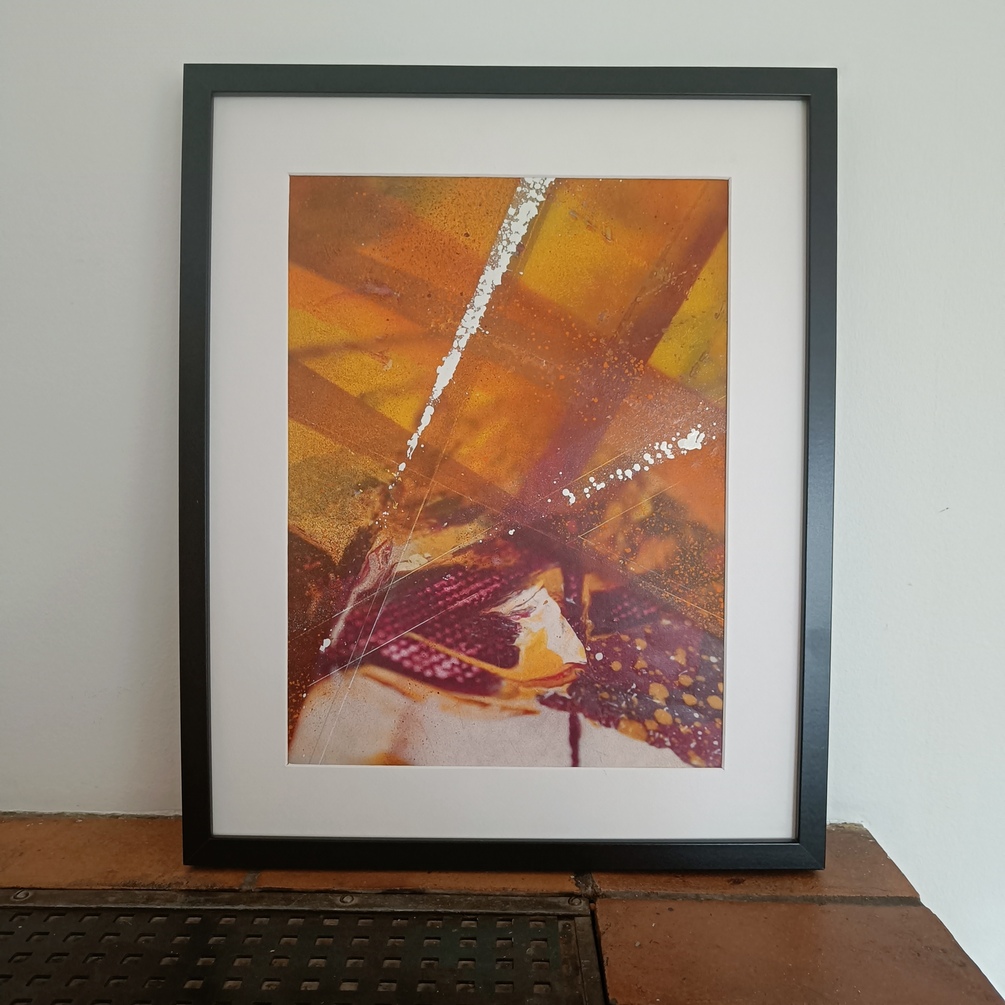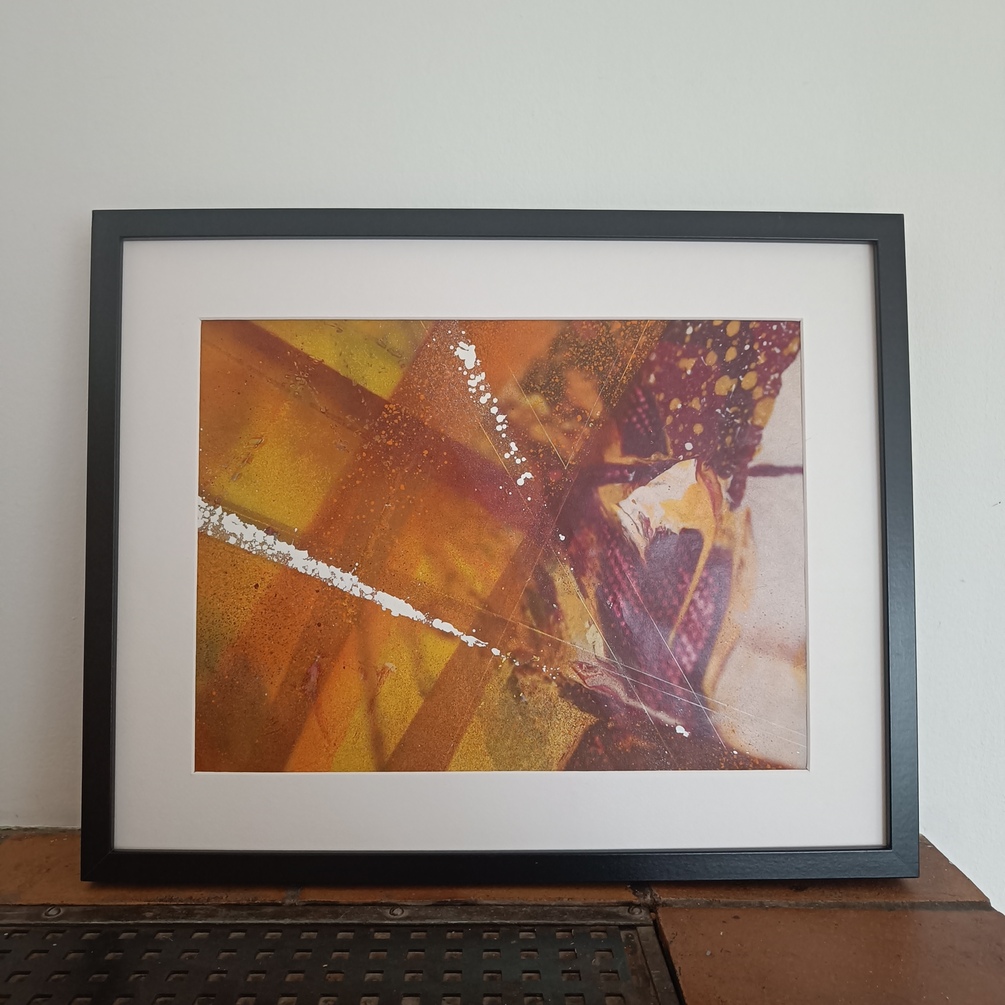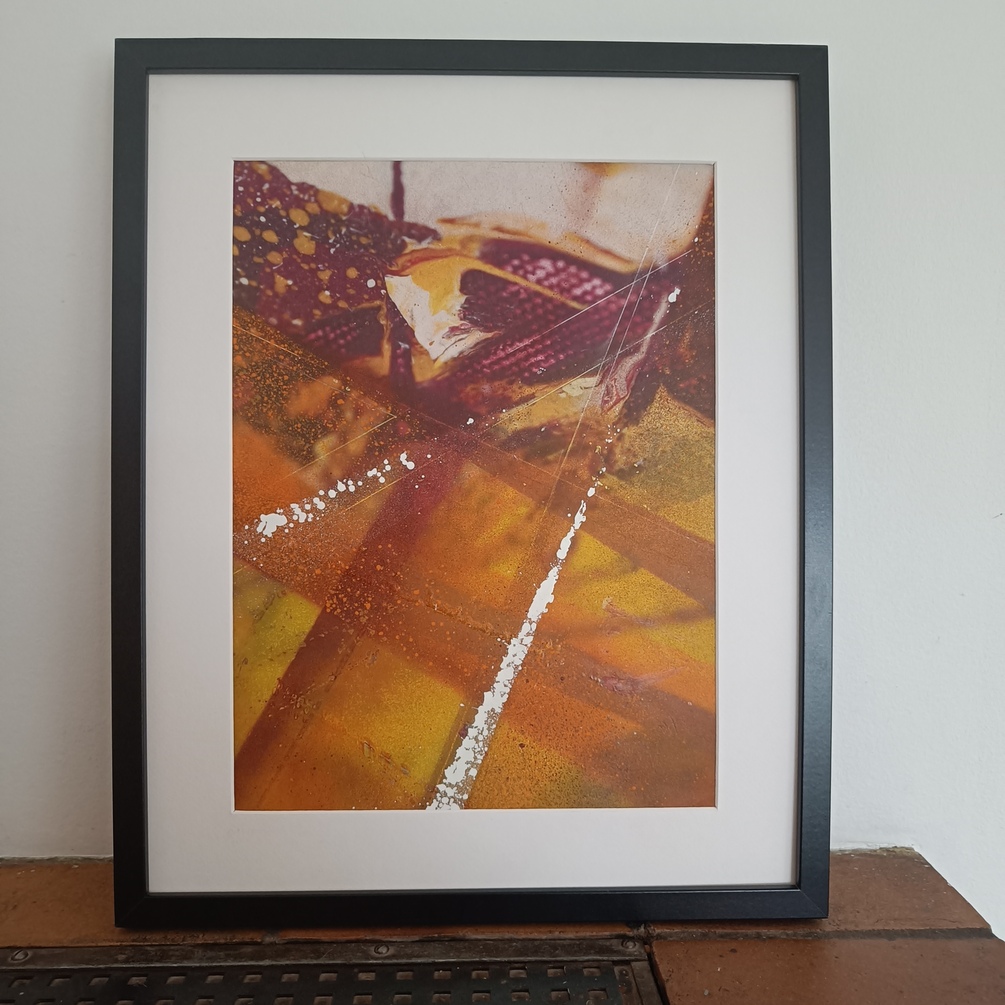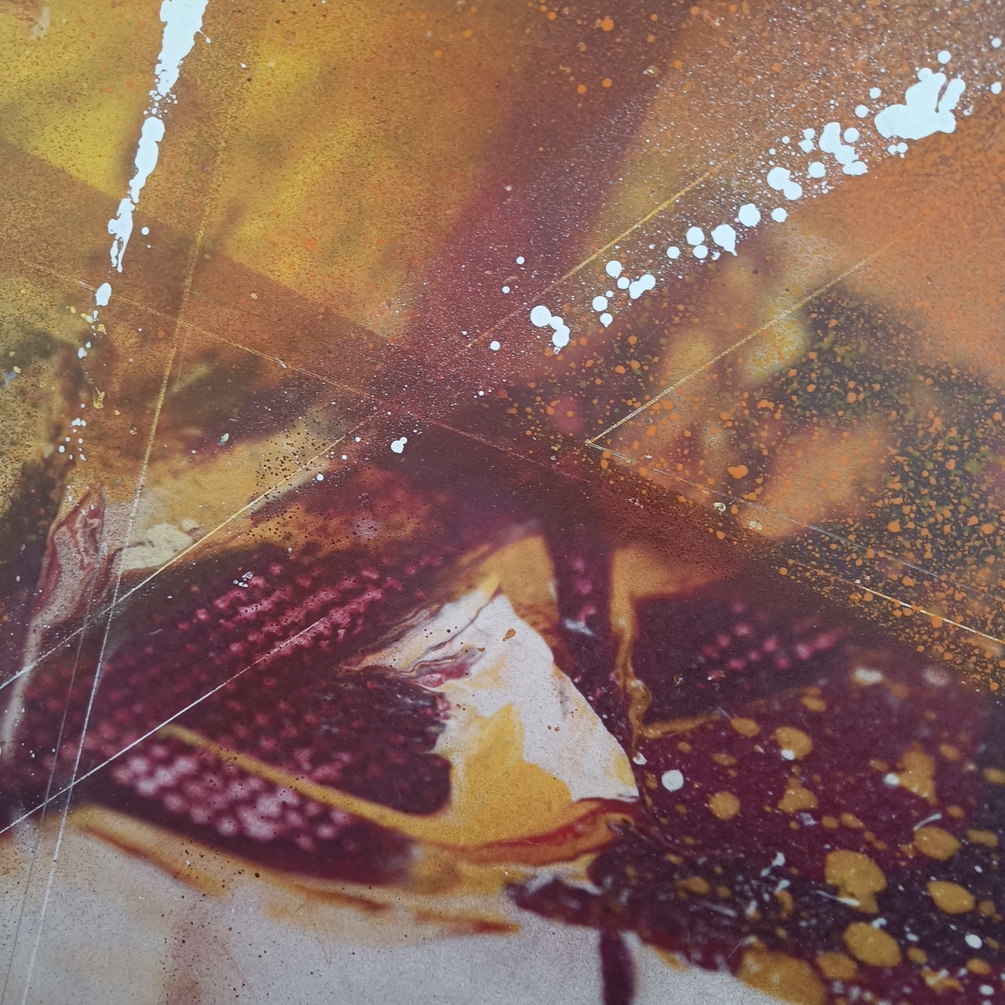
Mads Sonne
Soulfood
Happy 50th - The best is behind you - Living on prayers and curiosity.
Why isn´t there a signature in the left corner?
The works has been produced from an open perspective, where there is no pre-defined angle from which the work should be viewed.
I choose to let the observer decide from themselves from which angle, where the lines, the dynamics, the contrasts conjure up images or narratives within the artwork.
Its an one-off, so its not to be reproduced or re-done.